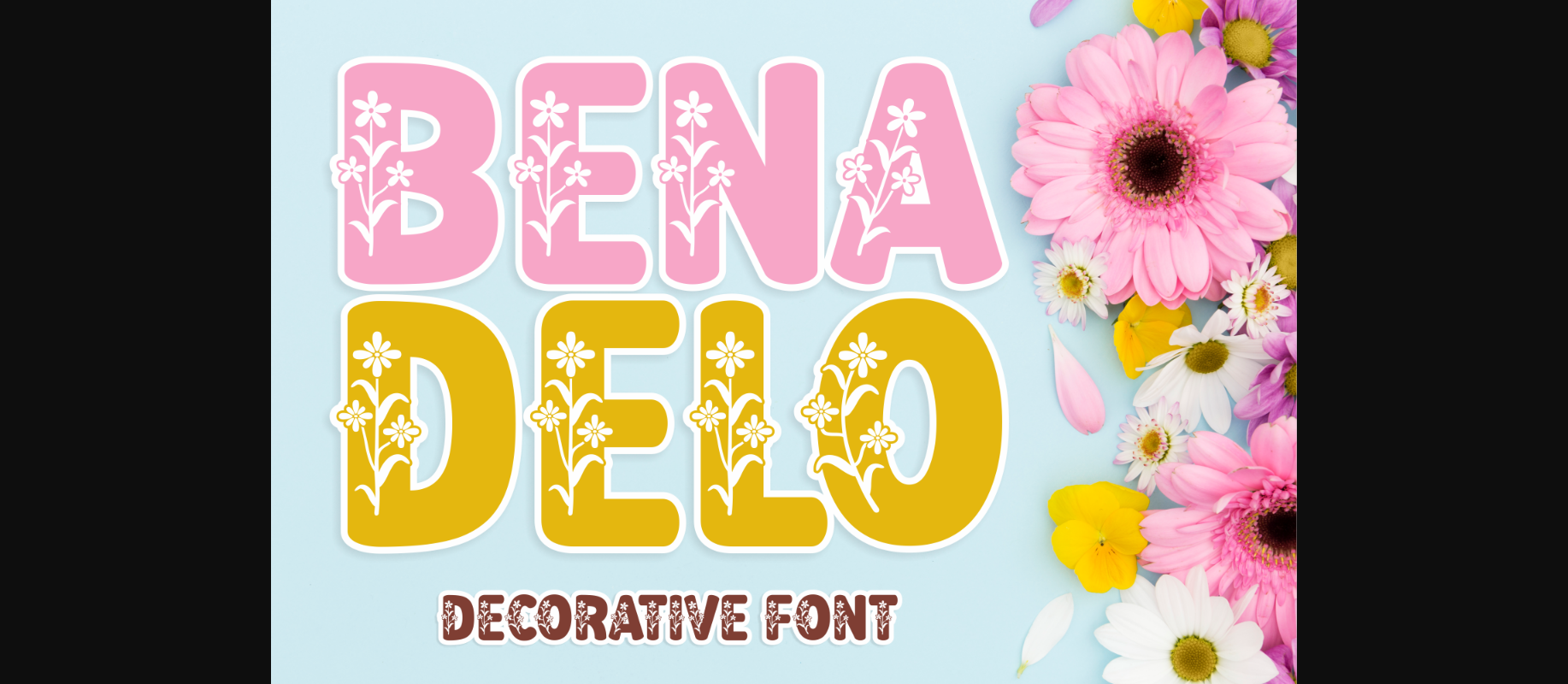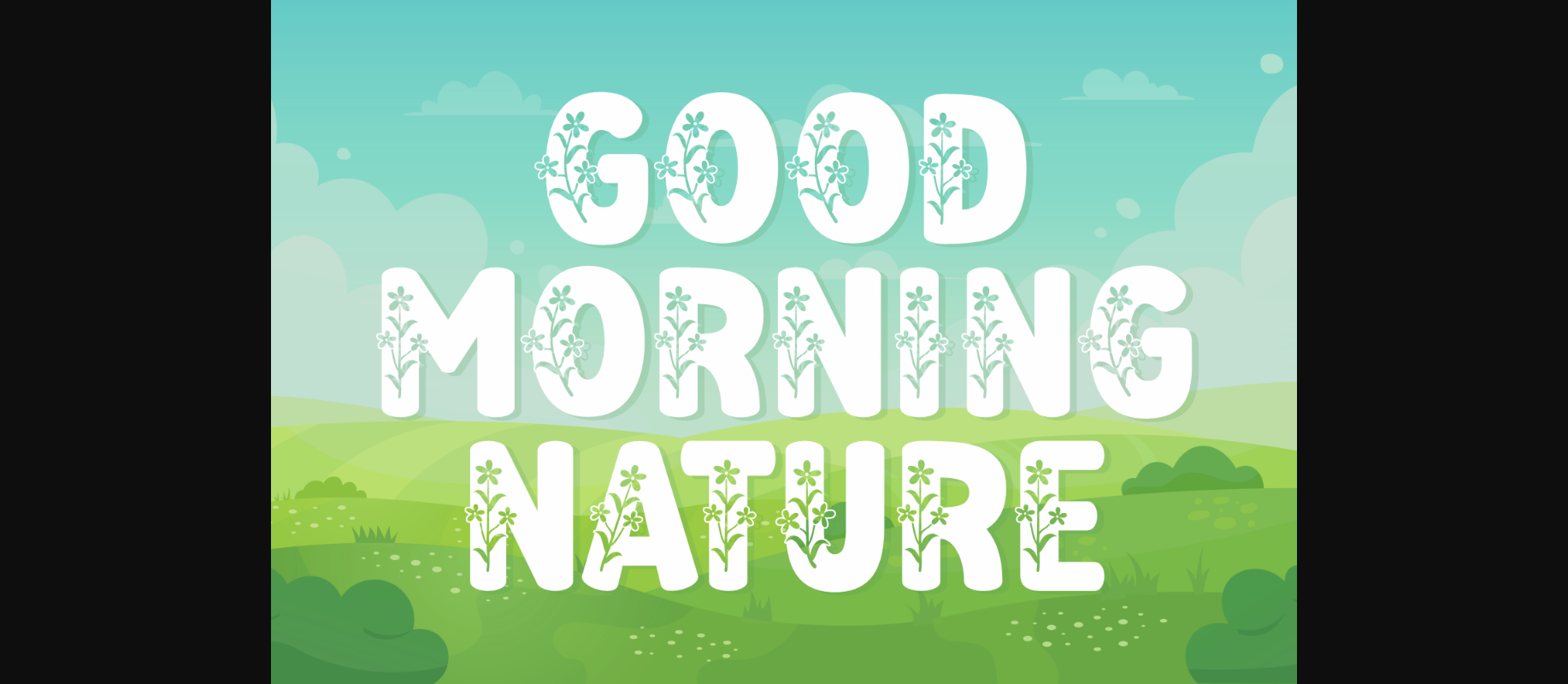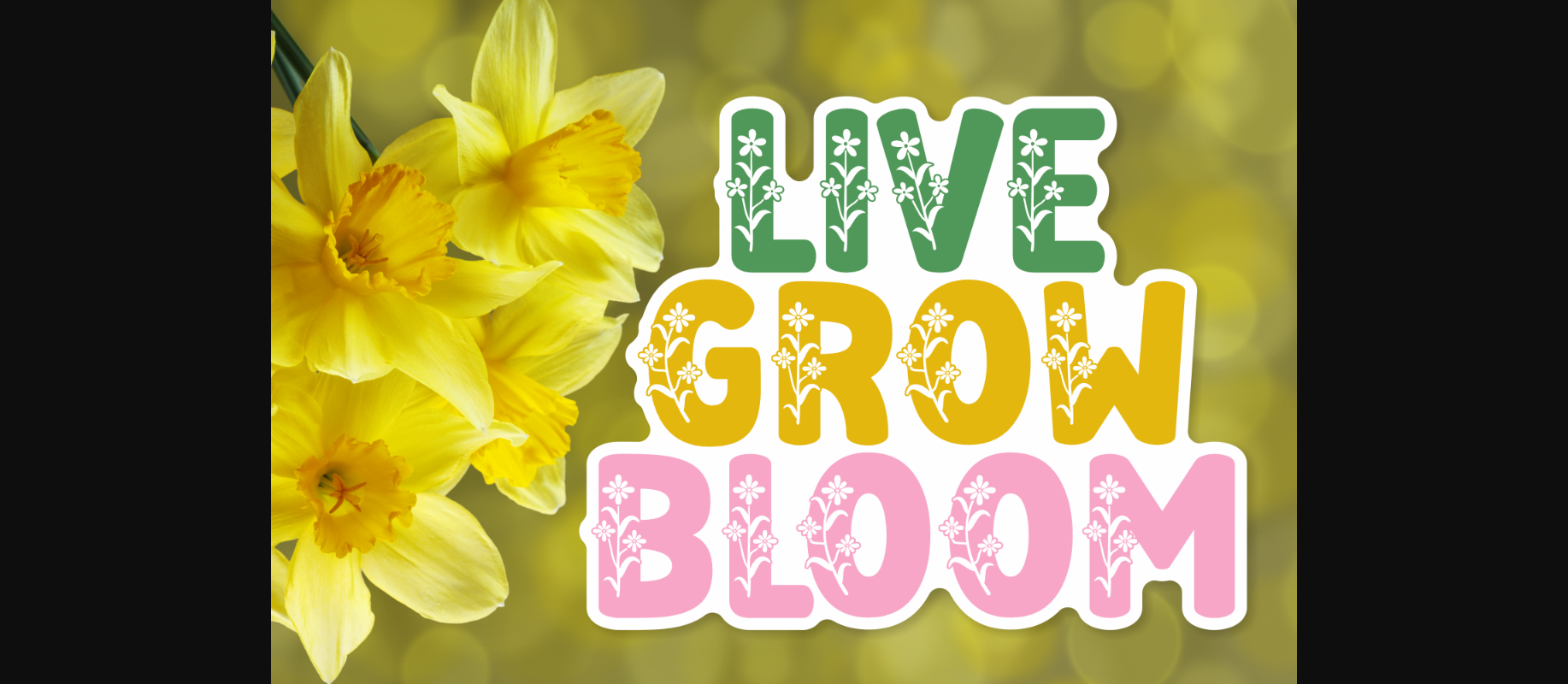
About Bena Delo Font
Bena Delo is a beautiful decorative font with floral details on its characters. This lovely and creative font is very helpful for creating wonderful quotes, posters, branding, logos, floral wedding cards, social media posts, birthday cards, spring decorations, and anything else you desire.